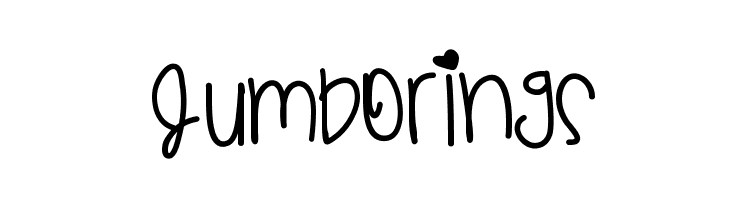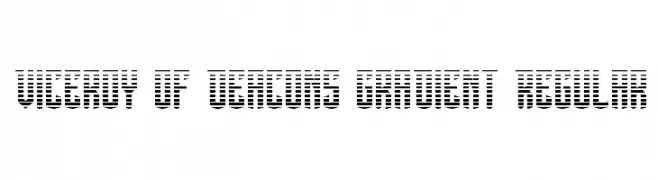
A collection of abstract and geometric symbols in various shapes.
A modern, rounded font with sleek, flowing lines and a sophisticated appearance.
A bold, gothic-inspired font with sharp, angular edges and dramatic serifs.
A playful, hand-drawn font with rounded edges and a whimsical style.
A bold, grunge-style font with a hand-painted, textured appearance.
A dynamic handwritten font with smooth, elegant curves and a playful flair.
A playful, bold font with a hand-drawn, comic-like style.
A bold, italicized font with a distressed, vintage texture.
Playful handwritten font with a casual style.
设计师偏爱 Othermil, Boros Rounded, GoekalaPersonalUse-Regular, Hello Christmas and Rohman Grunge,因为其造型干净、适用范围广—— 从品牌识别到落地页、海报都能胜任。